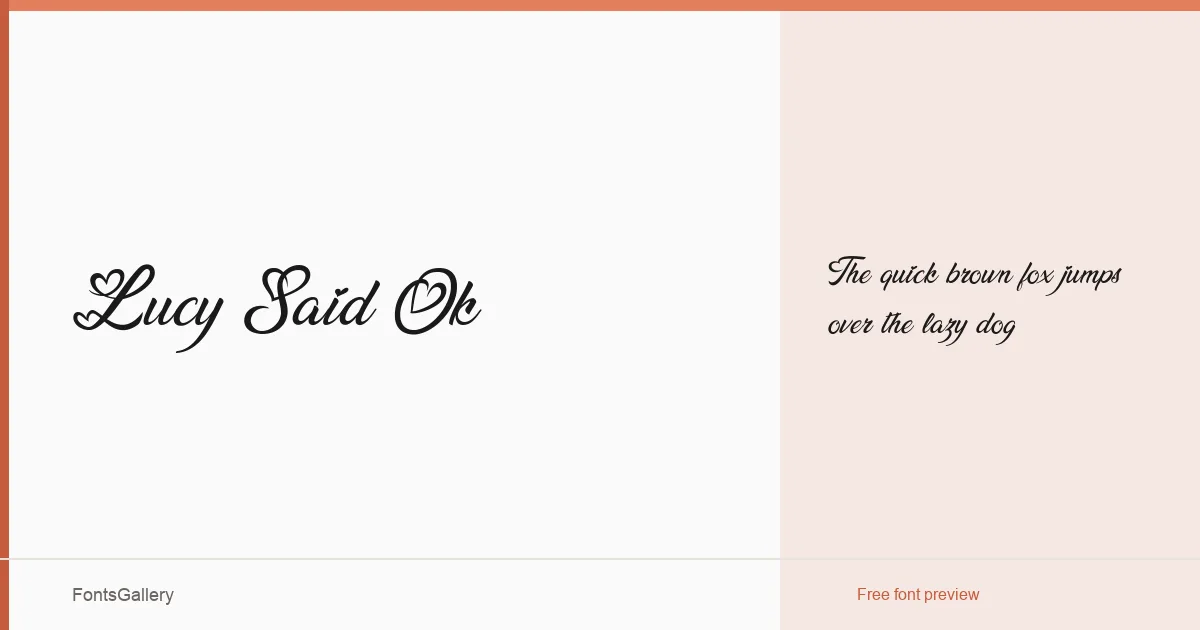
About Lucy Said Ok Font
Lucy Said Ok is an elegant script typeface designed by Billy Argel of the Billy Argel foundry. Rooted in romantic and classic sensibilities, this font brings a graceful, handcrafted charm to any project it adorns. Its flowing letterforms make it an instantly recognizable choice for designs that call for timeless sophistication.
Lucy Said Ok features the sweeping, connected strokes characteristic of classic script typography, evoking an air of romance and refinement. Its letterforms balance elegance with personality, drawing on a traditional calligraphic aesthetic that feels both polished and warmly personal. The fluid curves and delicate transitions between characters give it a distinguished, vintage-inspired quality.
This typeface shines in wedding stationery, invitation cards, and greeting cards where an intimate, romantic tone is essential. It is equally well-suited for logo design and branding projects that seek a classic, upscale identity. Lucy Said Ok pairs beautifully with Aresink for a cohesive script-forward look, or with Helvetica for a striking contrast between elegant script and clean sans-serif typography.